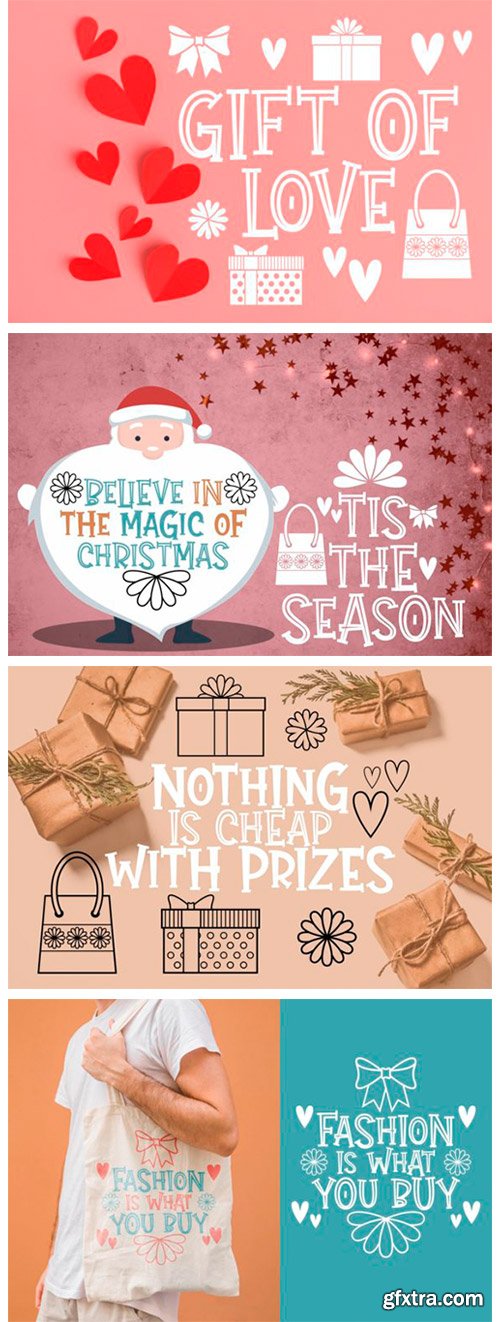
Gift of Love Font
Gift Of Love is an incredibly romantic display font that celebrates the power of love. Use it to turn any Valentine’s Day craft into a true piece of art!